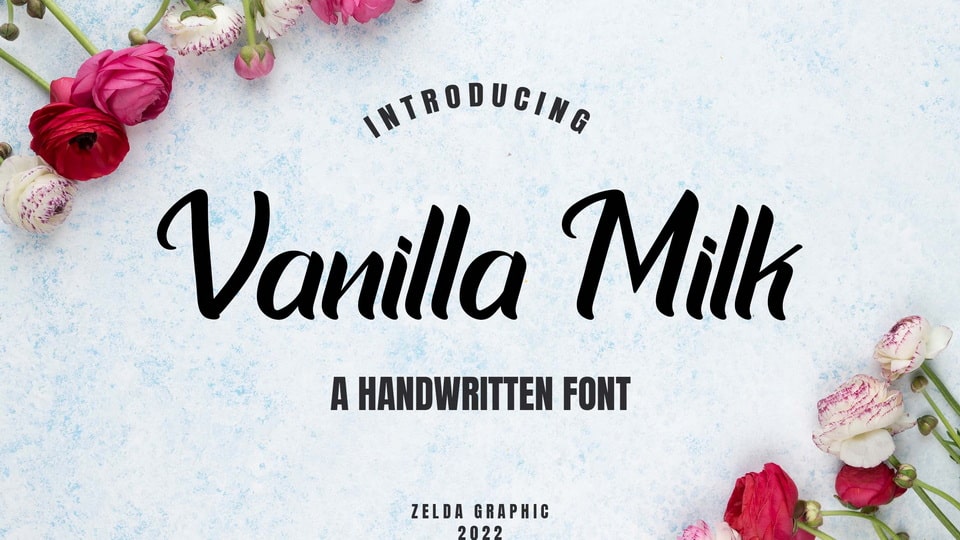
Download Vanilla Milk font, a cute and fun script typeface with a strikingly authentic feel. Vanilla Milk has a classy, elegant, and modern look that can be used for logos, branding, invitations, stationery, wedding designs, social media posts, and much more!
Designer: Zelda Graphic